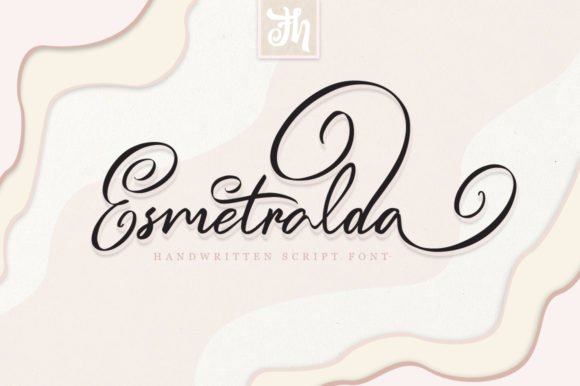
Falling in Love with Emetralda Font: A Designer’s Dream
Have you ever found yourself scribbling in your journal, experimenting with calligraphy, or sketching out ideas in your favorite notebook? For many creatives, those moments are where the magic happens – and inspiration strikes. For designers, the search for the perfect font to match their vision is an ongoing quest. That’s where Esmetralda Font comes in – a beautiful, handwritten font that will capture your heart and elevate your designs.
Esmetralda Font is a stunning, romantic font designed to add a touch of elegance and sophistication to any project. With its bold swashes and flowing curves, it’s the perfect choice for designers who want to create a sense of whimsy and charm. Whether you’re working on a wedding invitation, a branding project, or a packaging design, Esmetralda Font is sure to make your designs stand out.
- Unique Characteristics: Elegant, cursive script with a touch of vintage flair, ideal for creative and artistic projects
- Font Style: Script, Display
I recently had the chance to work with the Esmetralda font, and I’m excited to share my honest thoughts with you. Overall, I think this font has some great qualities that make it a solid choice for certain projects. ✨
- Unique and elegant design: The Esmetralda font has a distinctive, whimsical feel that’s perfect for adding a touch of personality to your designs.
- High-quality rendering: The font renders beautifully at various sizes and resolutions, making it suitable for both print and digital projects.
- Wide language support: Esmetralda includes a broad range of languages, making it a great choice for global brands and organizations.
While the Esmetralda font is great in many ways, there are some areas where it falls short. ⚠️
- May not be suitable for body text: The font’s elegant design can make it difficult to read at small sizes, so it’s best used for headings and titles.
- Limited character set: While the font supports many languages, its character set is not as extensive as some other fonts in its class.
Overall, I think the Esmetralda font is a great choice for projects where you need a unique and elegant look. Just be mindful of its limitations, and use it where it shines – in headings, titles, and other display text. ✨
Tips for Getting the Most Out of Esmetralda Font
To get the most out of Esmetralda Font, use it for creative projects that require a unique and elegant touch. Some common use cases include:
– Luxury brand logos and marketing materials
– High-end product packaging and labeling
Esmetralda Font is ideal for any project that requires a touch of sophistication and elegance. Some common use cases include:
– Creative resumes and personal branding materials
– Event invitations and announcements
– Digital product labels and tags
Alternatives to Esmetralda Font for Designers
Great Vibes is a beautiful, elegant script font perfect for creating a sophisticated and luxurious feel. It’s ideal for use in wedding invitations, branding, and packaging. Compared to Esmetralda Font, Great Vibes has a more refined and polished look, making it suitable for high-end designs.
Carolyna Pro is a modern, elegant script font that’s great for creating a sense of luxury and sophistication. It’s perfect for use in branding, advertising, and editorial design. Compared to Esmetralda Font, Carolyna Pro has a more modern and sleek look, making it suitable for contemporary designs.
Alex Brush is a elegant, handwritten font that’s perfect for creating a warm and inviting feel. It’s ideal for use in wedding invitations, stationery, and packaging. Compared to Esmetralda Font, Alex Brush has a more casual and relaxed look, making it suitable for personal and creative projects.